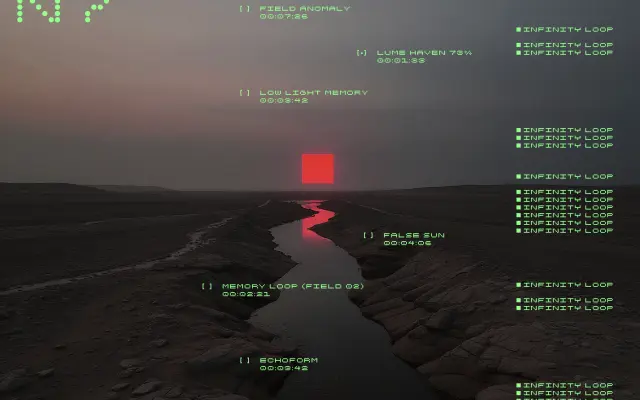
A pixel-inspired display family from Patio Foundry, split into Dot and Square variants built on a hard geometric grid.
BITRUSH comes in two subfamilies, DOT and SQUARE, each working from a pixel or bitmap visual language suited to screen-forward and tech-adjacent design contexts. The geometric construction gives it a retro-digital character without feeling strictly nostalgic. Best suited to headlines, logotypes and short-form display work where a hard, grid-based aesthetic is called for.
The naming conventions BITRUSH DOT and BITRUSH SQUARE, along with the overall branding, point clearly to a pixel or bitmap-inspired display typeface with geometric, tech-inflected construction.